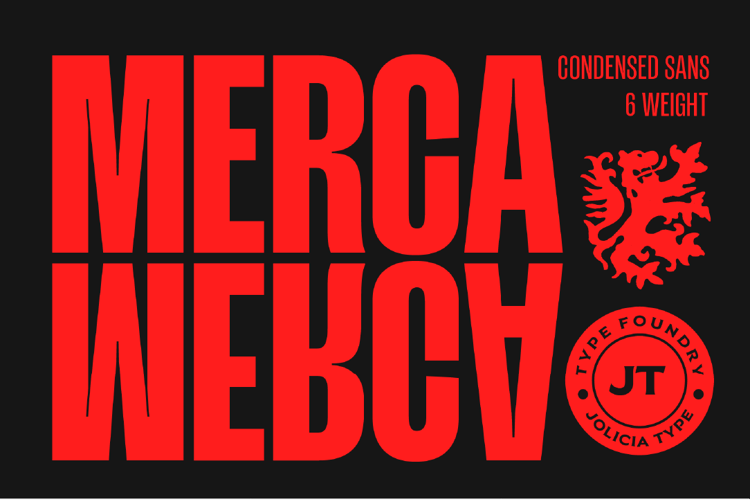
Merca Font
Merca is a sharply condensed display typeface crafted for bold
visual impact and assertive headline presence. With narrow
proportions, tall structure, and minimal contrast, it delivers powerful
typographic clarity in tight spaces. Ideal for campaigns, fashion
branding, posters, magazines, and packaging, Merca communicates
with precision, strength, and unapologetic tone. Available in 6
weights, it provides complete hierarchy control from Thin to Bold for
modern, high-impact layouts.